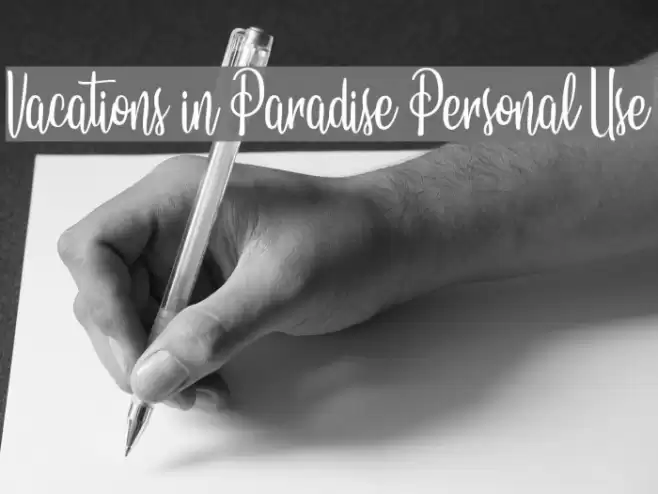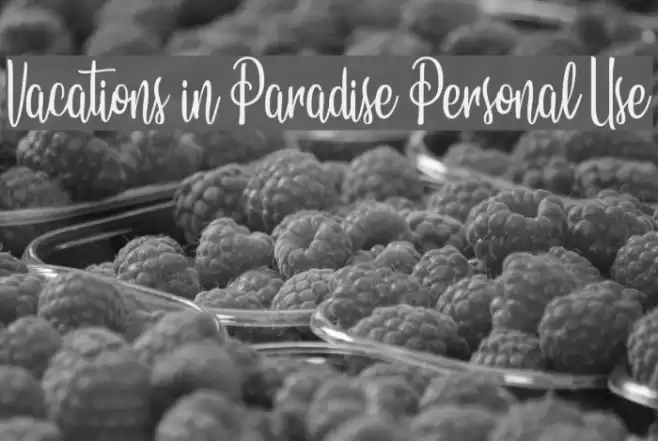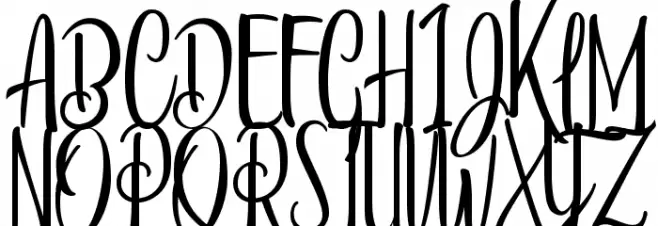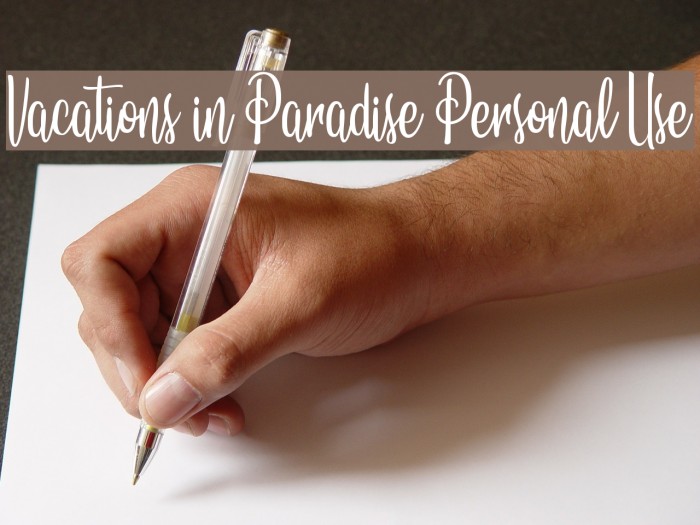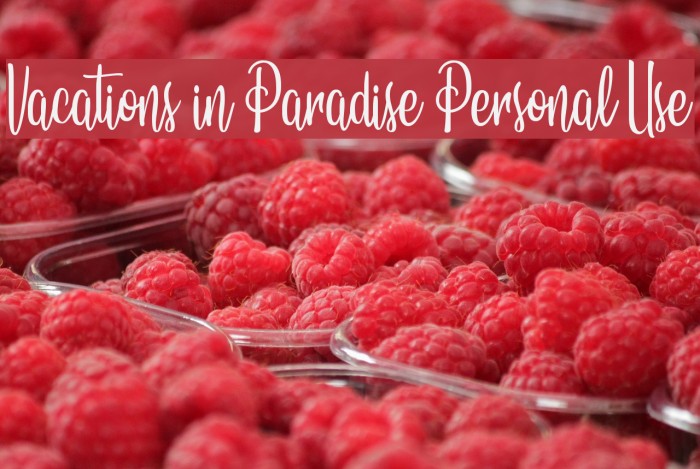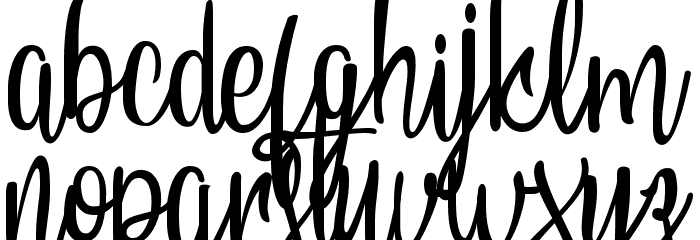
Vacations in Paradise Personal Use Font
Vacations in Paradise Personal Use Description
This font features a playful and artistic script style with a handwritten appearance. The uppercase letters are tall and narrow, with unique flourishes that add a whimsical touch. The lowercase letters maintain a consistent flow, enhancing the casual and friendly vibe. The numbers and special characters are designed to match the overall aesthetic, ensuring a cohesive look. This font is perfect for projects that require a personal and creative touch, such as invitations, greeting cards, or branding materials.
A playful and artistic handwritten script font from Uncategorized fonts.
- Proposed Projects: Ideal for invitations, greeting cards, branding materials, and creative projects.
- Use Case: Logos, Headlines, Invitations